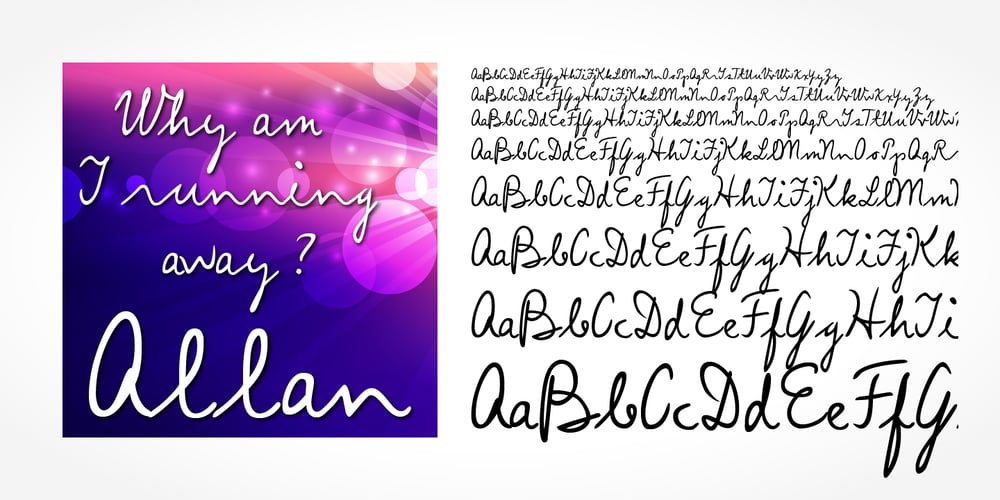
Allan Handwriting Font Family was designed by published by SoftMaker. Allan Handwriting contains 1 styles and family package options. Digitized handwriting fonts are a perfect way to give documents the “very special touch”. Invitations look simply better when handwritten than when printed in bland Arial or Times New Roman. Short handwritten notes look authentic and appealing. There are numerous occasions where handwritten text makes a better impression. “Allan Handwriting” is a beautiful typeface that mimics true handwriting closely. Use Allan Handwriting to create stunningly beautiful designs easily.